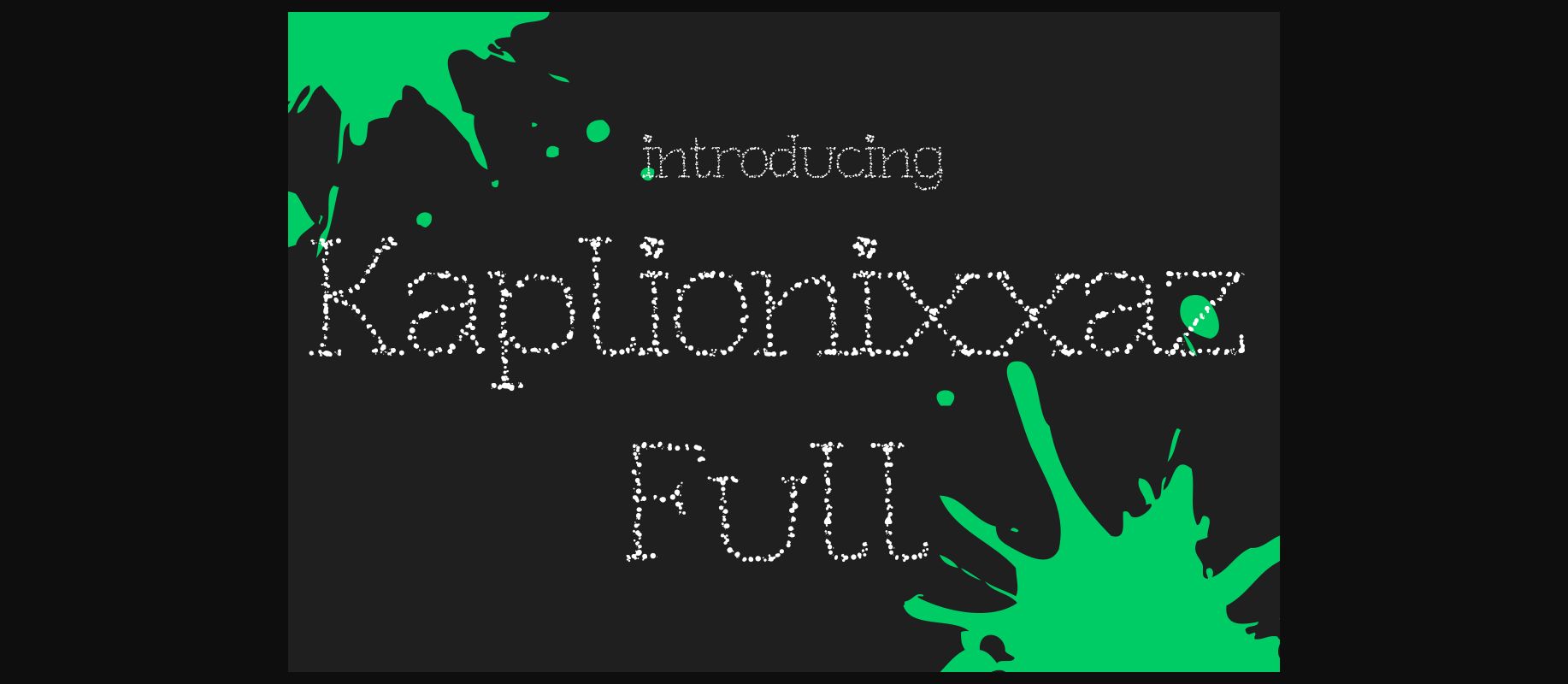
Kaplionixxaz Full Font
Kaplionixxaz Full is a fun, stippled font that works well in relaxed themes. This font looks ideal in large formats and adds a ton of character to projects of every type.